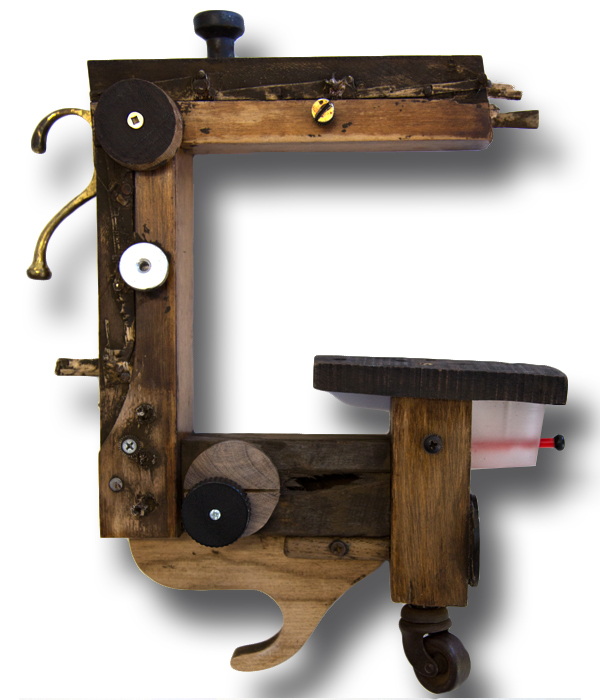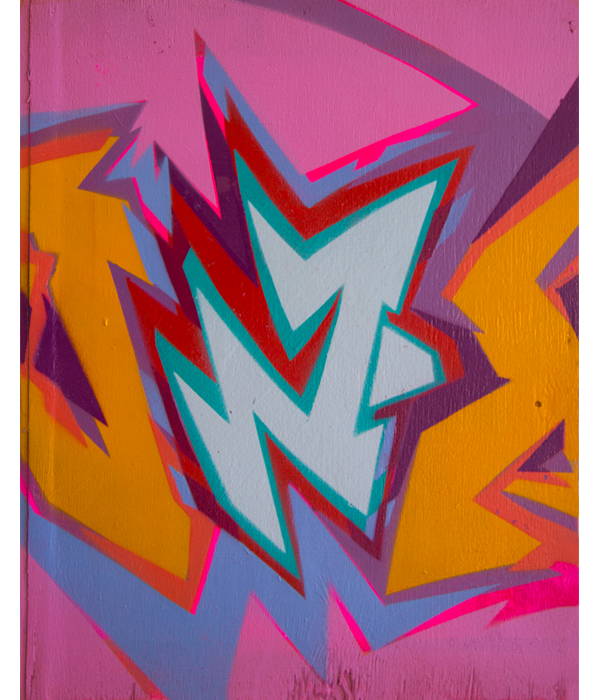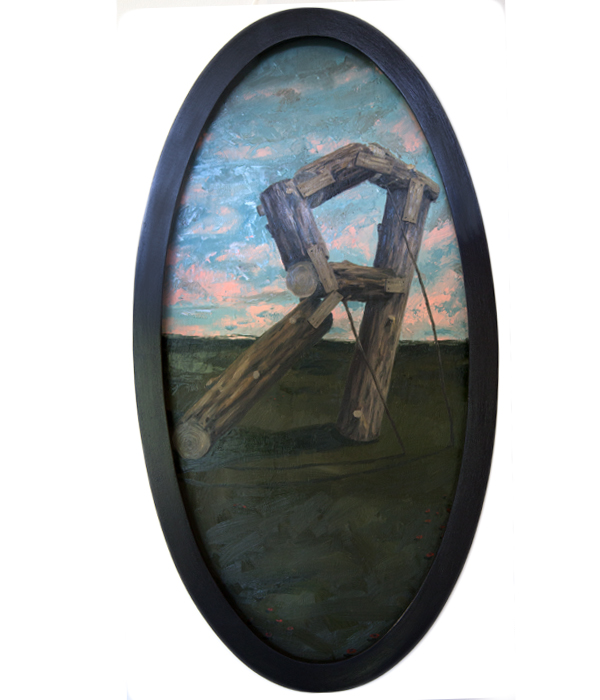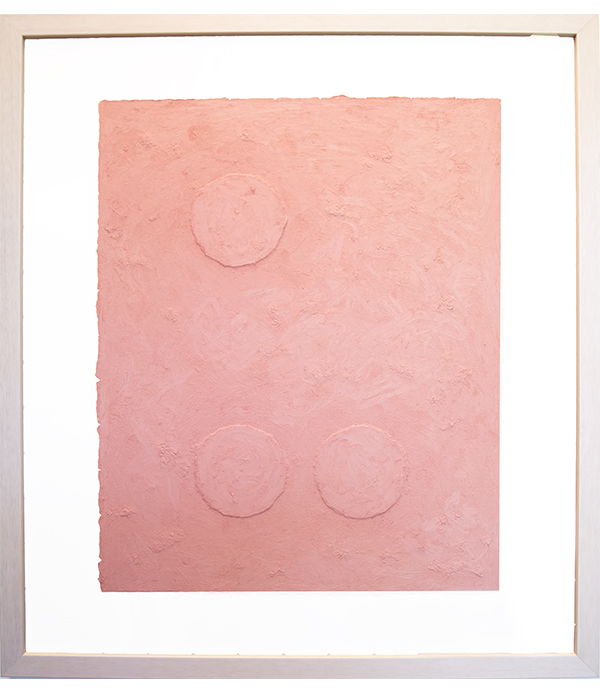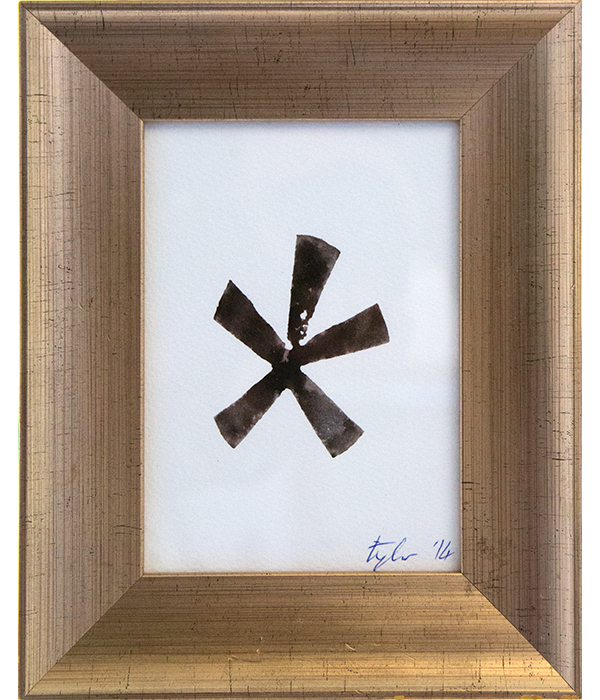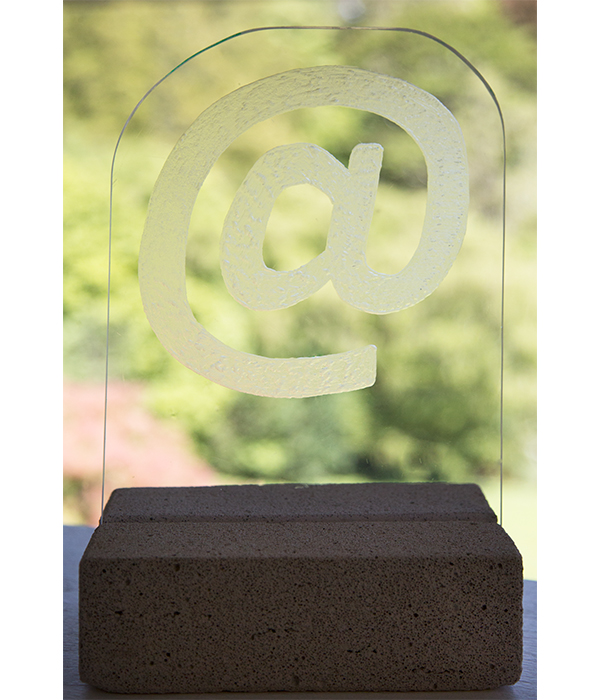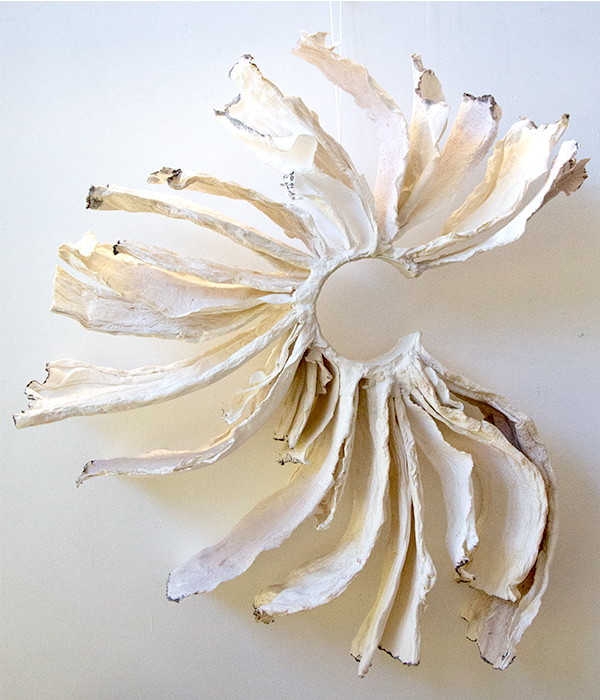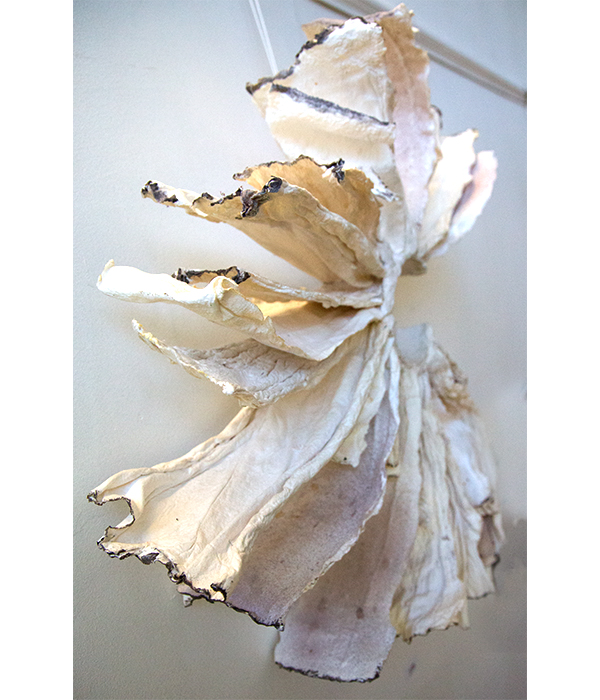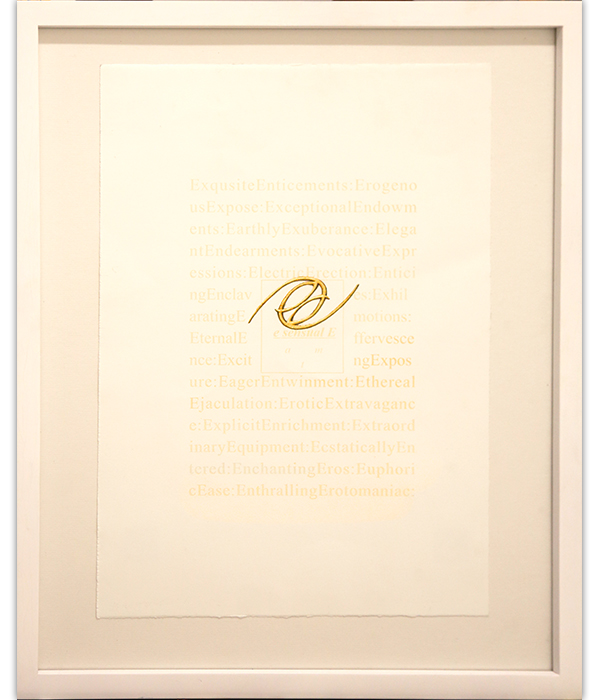
Letters are beautiful. No really, they are. Just look at that silly lower case ‘q’, or that snugly ampersand. For me, typeface design is the crowning glory of the design kingdom which is why I decided to curate an exhibition, indulging my love for the letterform. The resulting exhibition displayed a bunch of super talented artists who also happen to be staff here at The Learning Connexion.
The brief was easy as A, B, C (yes, that’s a pun). Rework a randomly selected letter from the alphabet, interpreting it at will. Soon, I had more artists interested than I had letters, so some lucky punctuation marks were thrown into the mix.
It was fascinating to see my colleagues’ creativity stretching to places far beyond my imagination. Amazing skills and techniques were revealed. An interactive ‘G’ with a squeaky wheel sat near an exclamation point that literally exclaimed itself to the viewer. A paper crafted ‘C’ creature looked ready to swim off the wall, and homage was paid to braille with a textural ‘U’. Materials ranging from aerosol paint to cat biscuits were all used for this wonderful staff collaboration.
The most fascinating moments to me though, were how my colleagues approached the brief. They had one month to hit the deadline. Plenty of time to get sanding, sketching, moulding, stitching. Loads of time to explore the plethora of ideas just bubbling out of their brain pots. What I observed instead was a subliminal consensus - a movement that shall be known henceforth as ‘Positive Procrastination’.
My dad had this joke at home. It was a round piece of laminated orange cardboard with ‘Tuit’ printed in big black letters - he could always say that he'd ‘get a round tuit’. As I moved into my adulthood, I came to realise that this was not only excellent quality pun material for fathers nationwide, but also perhaps a profitable technique employed by thinkers and dreamers.
Proactive procrastination is the essence of Dad’s ‘Round Tuit’. The method was the same with my colleagues. They received their brief and their letter. Then for about the first week they tucked the brief away in a corner of their brain, recalling the information only when necessary. Week two brought ideas to the surface. Then one or two seeds of intention were allowed to fester and germinate in the depths of their minds, quietly mutating into a tangible thought. Week three brought phrases like ‘I have an idea,but I just need to do it’, or ‘I don’t know if mine will work.’ Week three also brought glazed, wide-eyed panicked looks when artists suddenly clicked that the deadline was looming within a week. Suddenly the Materials Shop had a few more sales.
Week four; hand-in week. Wednesday was also the day that most artwork was being completed. Now, keep in mind most of these people are professional artists and this was the day before hand-in. Thursday: D-Day and boom! A deluge of wonderful creations arrived, fresh from artists’ dens. Most artists finished their work shaving close to submission time. A handful of people got theirs in way before the deadline. I take my hat off to them.
What I have gleaned from this experience, is that this last minute-ness that so many of us have been told is such a negative trait, may indeed be genius at work. I have come to see that the fostering of the imagination happens somewhere in the unprobed unconscious. An art piece is like a small seed ready to germinate. All you really need to do is to get a round tuit.
Serena Maree, 'A'. Screenprint
Rhian Filer, 'Beverly's daughter'. Ink/watercolour
Sue Blumsky, 'C'. Cotton paper
Sam Harris, 'Delta Goodrem'. Mixed media
W.Grant Barriball, 'e sensual E- eat me'. Mixed media
Kathy Mathews, 'Whe en'. Cotton/paper
Aaron Frater, 'Wizz, in the Key of G Minor'. Assemblage
Holly Thomas, 'h (lower case)'. Mixed media
Sophie Saunders, 'I'. Oil
Ly Nguyen, 'Think Outside the J'. Embroidery
Thomas Barry, 'The Letter K'. Arcylic
Andrew Ginther, 'El L'. C type photo print
Sarah Brock, 'Mmmm...'. Graphite/silk
Kiran Gandhi, 'The N Word'. Aerosol/stencil
Leigh Mitchell-Anyon, 'Oh'. Inkjet print
Kate Logan, 'The Good Companion 1/10'. Photography
Karen Lynley, '4 of a Kind'. Mixed media
Rodger Key, 'R'. Oil on panel
Matt Moriarty, 'Untitled'. Adhesive sticker
Dan Wilkinson, 'Tea x Thirty Three'. Tea bags
John Cornish, 'U'. Touch
Larissa McMillan, 'Dubbleyew'. Gold paint/ink
Natalie Halley, 'Kiss kiss'. Mixed metals
Vanessa Patea, 'Letter Y'. Paper
Sarah Philp, 'Zion'. Mixed media
Cat Townsend, 'And'. Photography
Carrie Burke, 'Where you @?'. Mixed media
Lorraine Tyler, 'Asterix'. Ink on paper
Matt Sharp, 'med EAR'. Digital art
Bernice Reich, 'How Big is Your Piece?'. Photography
Karla Vink, 'Exclamator'. Mixed Media